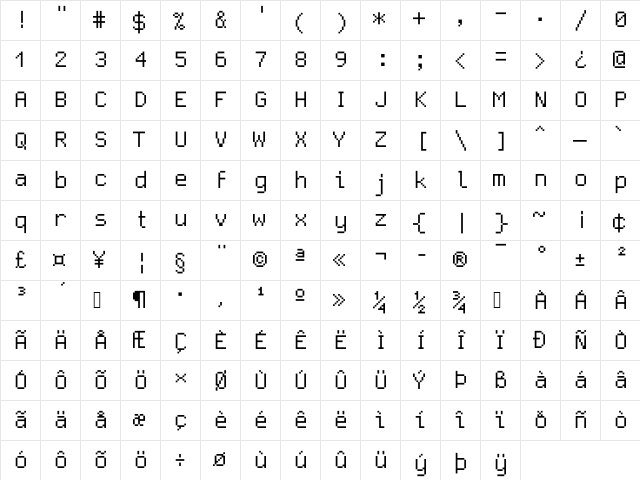
GohuFont 14 Free Font
GohuFont 14
Style: 14
GohuFont Family
GohuFont 14
Design Context for GohuFont
GohuFont is a composed and adaptable typeface that performs quietly and consistently across a wide range of design contexts.